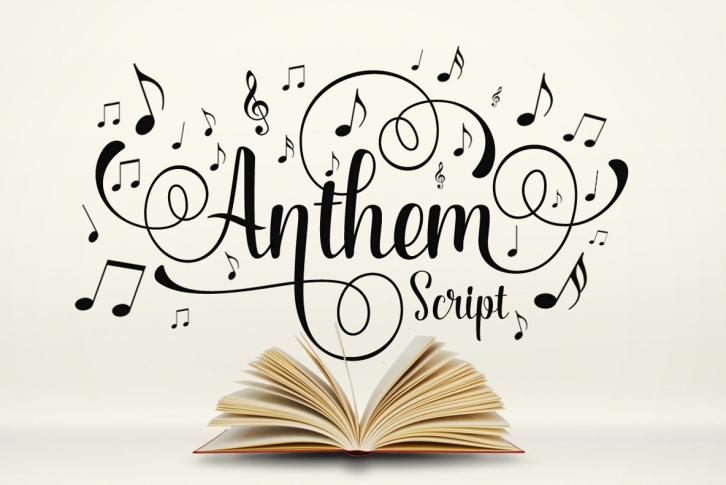
Anthem Script is a typeface that experiences adopting two building models: the typographic (with repetition of shapes) and the script (with the freedom of writing). The models are presented in a subtle, unobtrusive way and mainly without conflicts. The essence of each personality is present, coexisting harmoniously and enjoying the same stylistic space.
After careful evaluation of the connections between characters, intelligent standards have been established for use of the OpenType feature, that used together with the ‘stylistic alternates, stylistic sets, and swash’ feature, offers a gentle and friendly pace. It can be accessed by using OpenType savvy program such as Adobe Illustrator and Adobe InDesign.